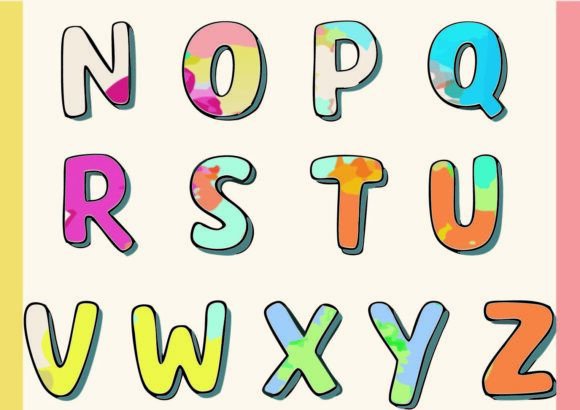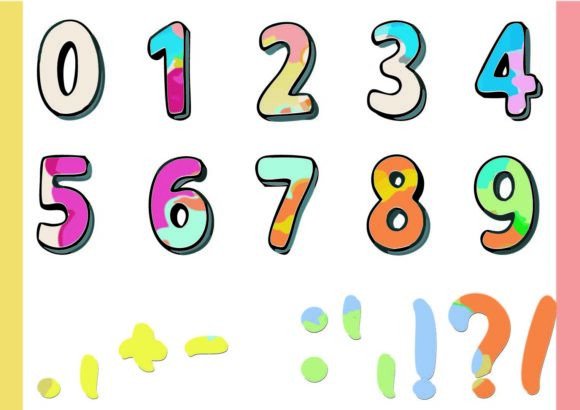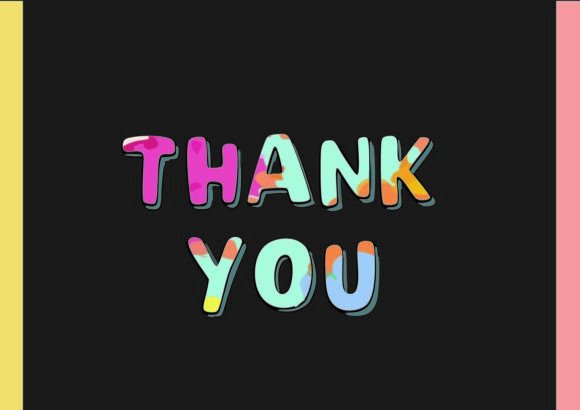
The Colorful World of Arabella Font: A Designer’s Delight
I still remember the day I stumbled upon the Arabella font while working on a branding project for a children’s play area. I was on a mission to find a font that would add a pop of color and whimsy to the design. After hours of searching, I finally found Arabella, and it was love at first sight! ✨ This color font, also known as a chromatic font, has taken my designs to a whole new level, and I’m excited to share my experience with you.
A Honest Review: What I Love and What to Watch Out For
- ✨ Unique and colorful: Each glyph has a different set of colors, making it a standout in any design.
- 🎨 Complex and detailed: The glyphs are like mini paintings, with intricate paths and connections.
- 🤔 Learning curve: Mastering the OpenType features and glyphs takes some time, but trust me, it’s worth it.
The Story Behind Arabella Font
The Arabella font was designed with the intention of pushing the boundaries of typography and color. The designer aimed to create a font that would be a work of art in itself, with each glyph telling a unique story. Inspired by the intricate details of hand-painted murals, the designer crafted Arabella to be a masterpiece of color and creativity.
| What is a color font, and how does it work? | A color font, like Arabella, uses OpenType-SVG technology to display multiple colors and intricate details in each glyph. |